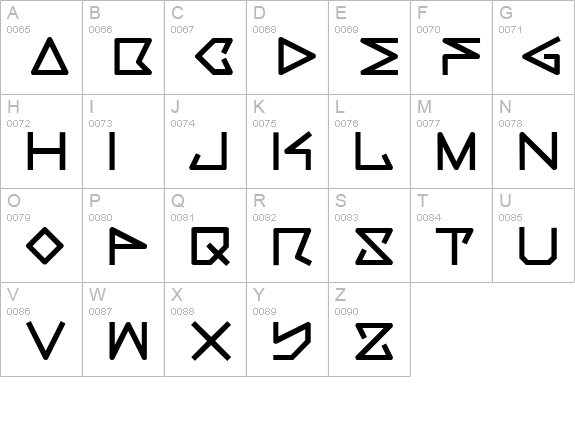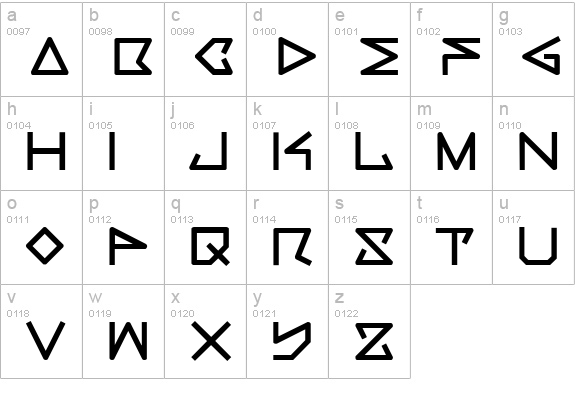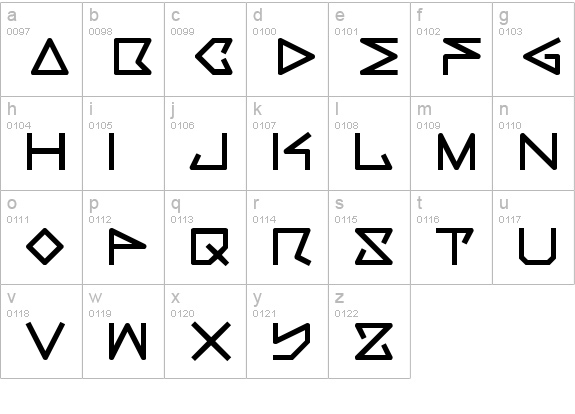
Introducing Rec Font, a stunningly versatile typeface that is perfect for all your design needs. With its clean lines and modern aesthetic, Rec Font is sure to make a lasting impression on any project. But what sets Rec Font apart from the rest? Well, it's not just its impeccable design – it's also the fact that it is completely free! That's right, you can download this amazing font without having to spend a dime. Whether you're a professional designer looking to add a touch of elegance to your latest project or a novice DIY enthusiast seeking a stylish font for your personal creations, Rec Font is the ideal choice. Its wide range of glyphs and characters allows for endless creative possibilities, making it suitable for everything from logos and branding to invitations and web design. Not only does Rec Font offer excellent legibility at any size, but it also features a variety of weights and styles, ensuring that you can find the perfect fit for your specific needs. Its versatility truly knows no bounds. And the best part? Rec Font is freely available to download at FontsMarket.com. Simply visit the website, locate Rec Font, and start enhancing your designs with this exceptional typeface. What are you waiting for? Get your hands on Rec Font today and experience the power of free, high-quality design.